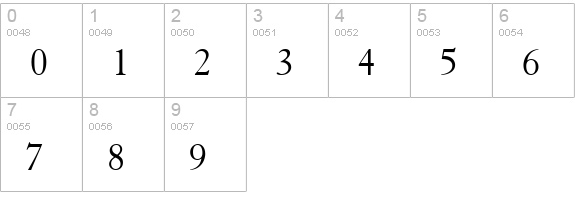
Tiasco SSi Font Details
Introducing Tiasco SSi, a captivating and dynamic font that seamlessly combines elegance with a modern twist. This versatile typeface embodies sophistication and creativity, making it the perfect choice for a wide range of design projects. With its smooth curves and balanced letterforms, Tiasco SSi exudes a sense of professionalism and refinement. Each character is meticulously crafted to ensure a harmonious flow, creating a visually stunning experience for readers. Whether used for headlines, body text, or logos, this font effortlessly captures attention and leaves a lasting impression. One of the most remarkable aspects of Tiasco SSi is that it is available for free. Yes, you read that right! This incredible font can be freely downloaded from FontsMarket.com, allowing designers, creatives, and enthusiasts alike to easily access its beauty and versatility without any cost. Tiasco SSi's wide range of weights and styles offer endless possibilities for customization and experimentation. From the bold and impactful to the delicate and refined, this font allows you to effortlessly convey your message with clarity and style. Its extensive character set also includes multilingual support, ensuring that your designs can reach a global audience. Whether you're working on branding projects, editorial designs, or web graphics, Tiasco SSi is sure to elevate your work to new heights. Its sleek and modern aesthetic complements a variety of design styles, making it a go-to choice for both contemporary and classic projects. So why wait? Embrace the elegance and versatility of Tiasco SSi by downloading it for free at FontsMarket.com. Let this font become your secret weapon in creating captivating and impactful designs that leave a lasting impression.